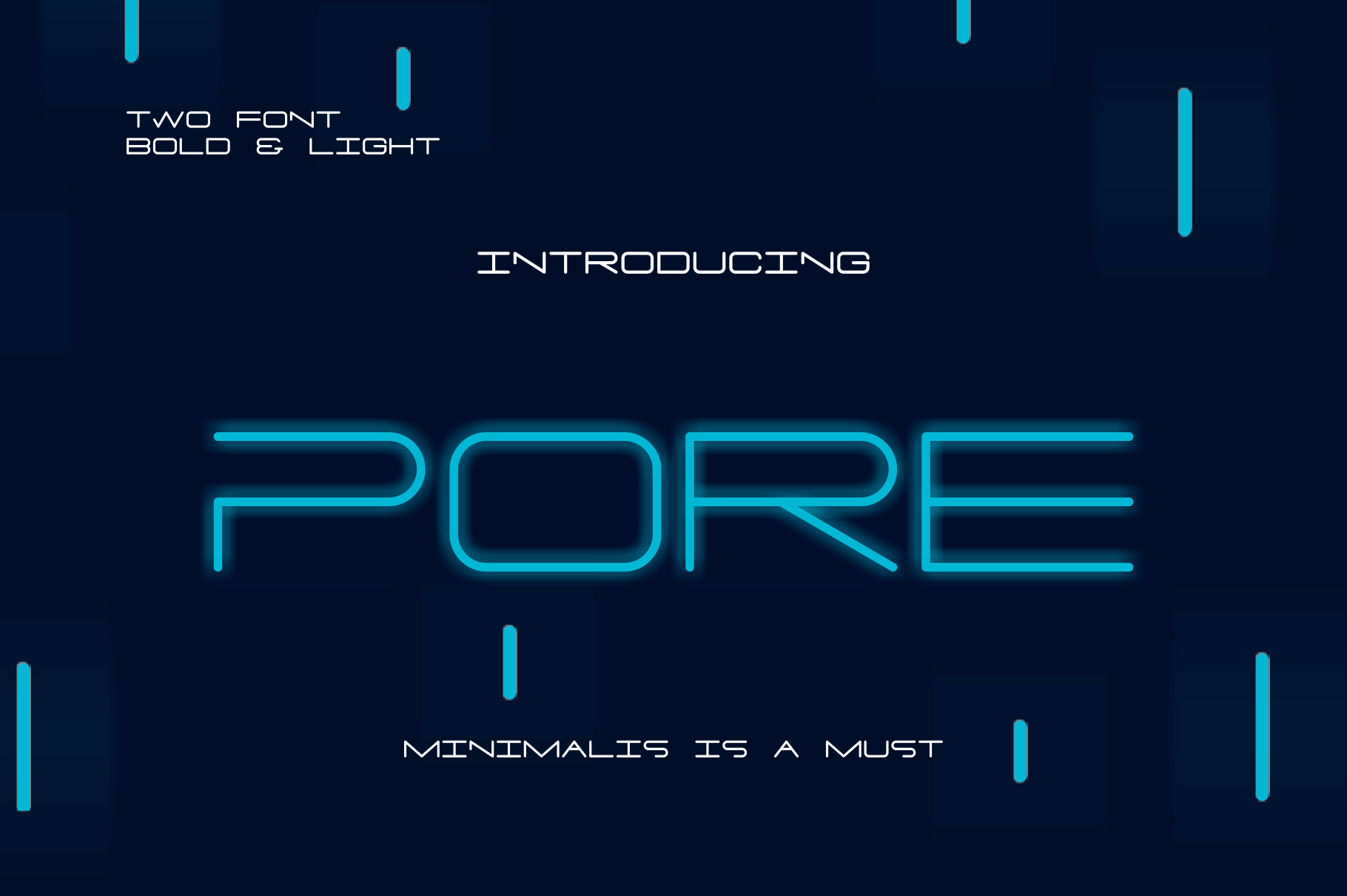
PORE Font
PORE Expanded is a minimal and rounded font. It’s an sans serif, wide, rounded monoline font which will provide an informal, sci-fi,modern,elegan and clean look to your work.